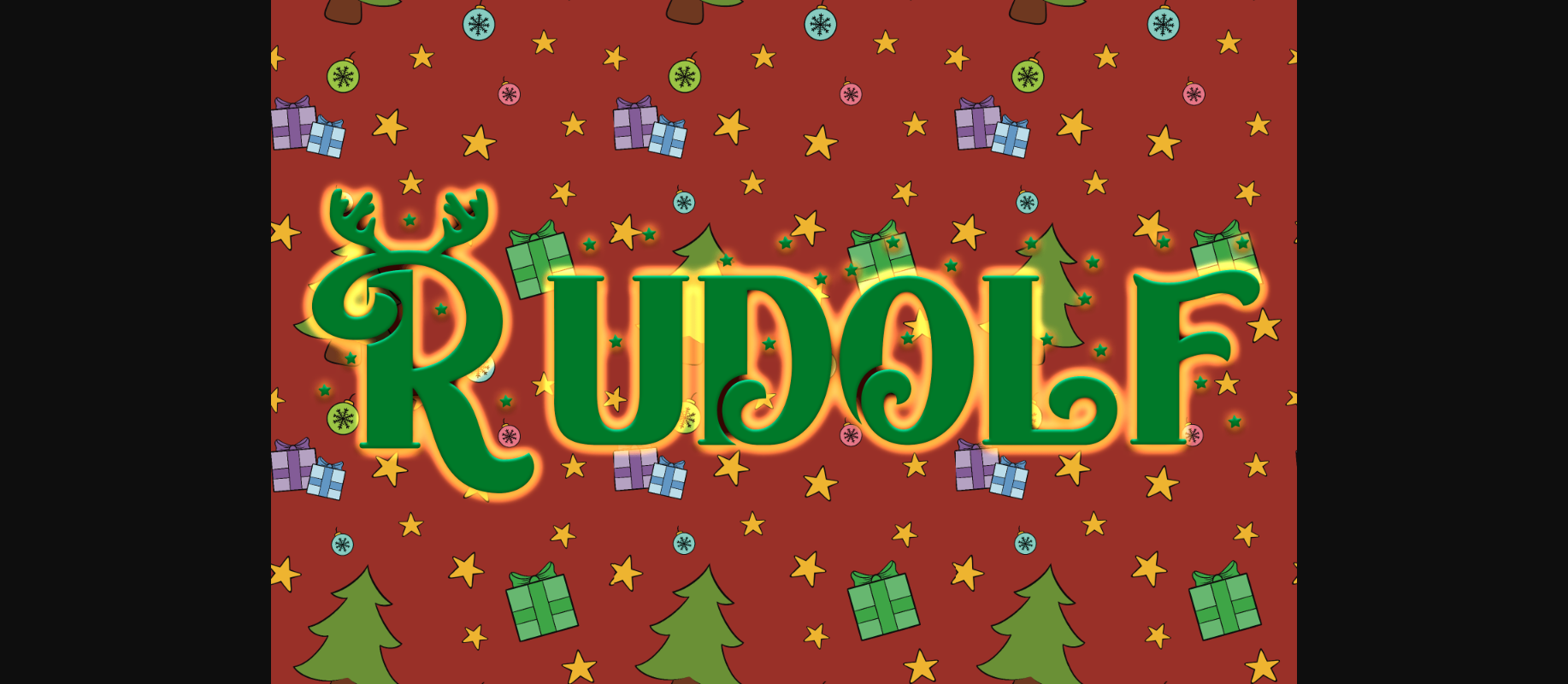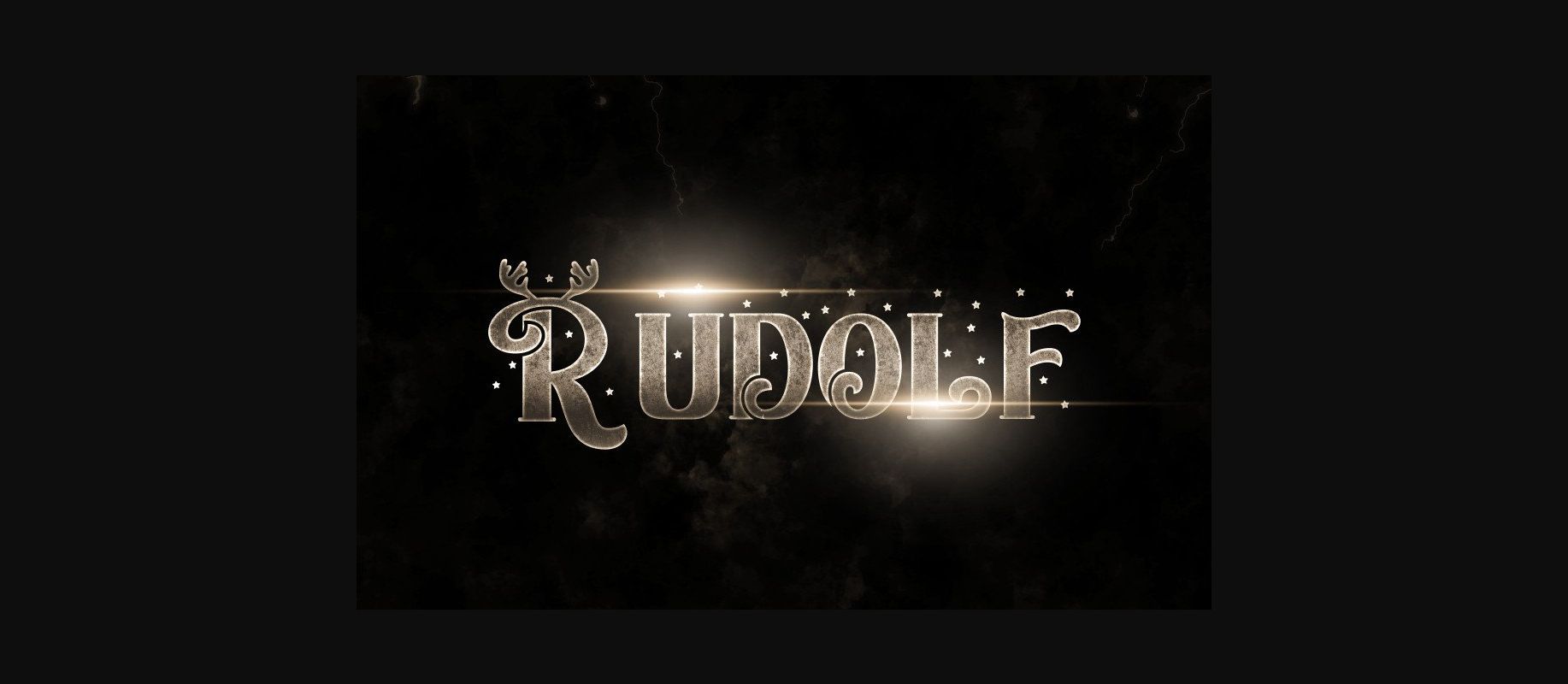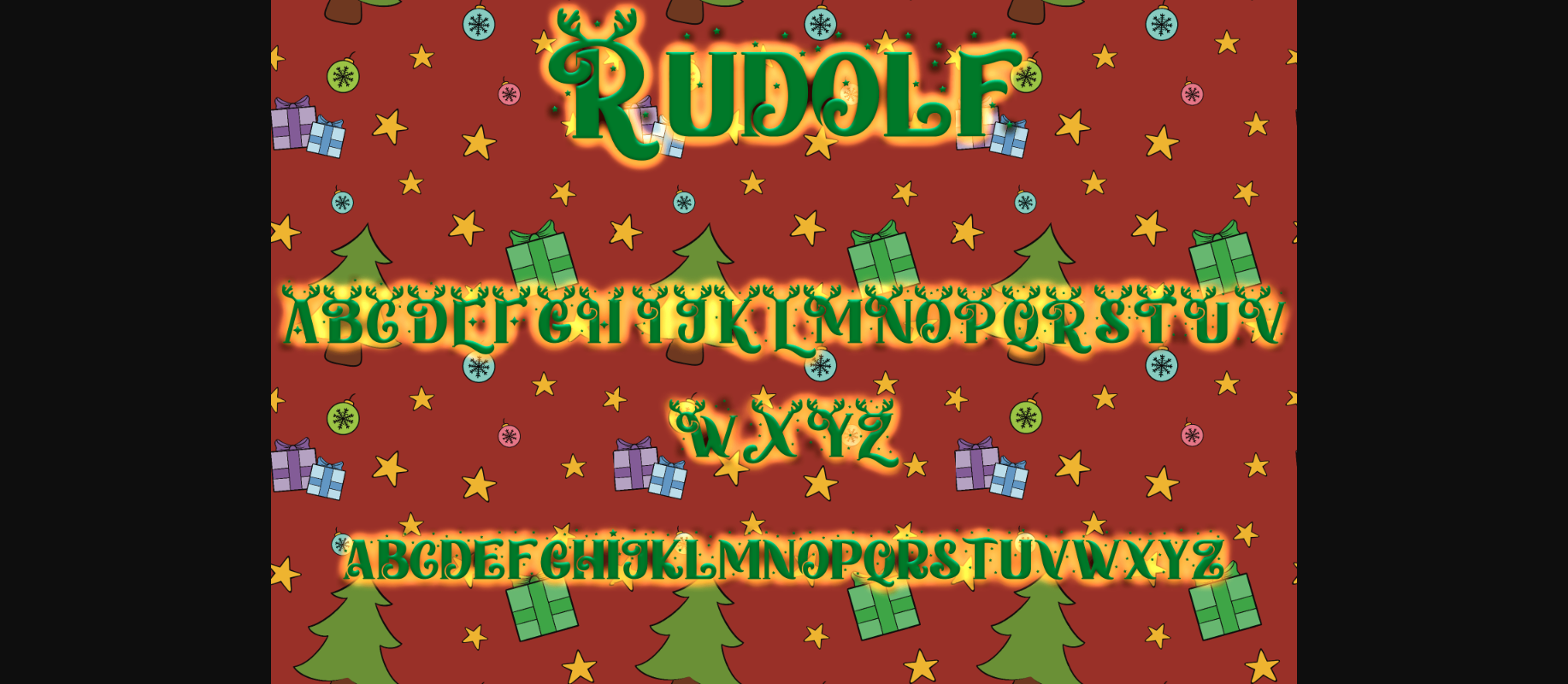
Rudolf is a cute and festive Christmas decorative font. Its cheerful and joyful vibe is perfect for creating outstanding Christmas crafts, be it decorations, cards, gift tags, and more.